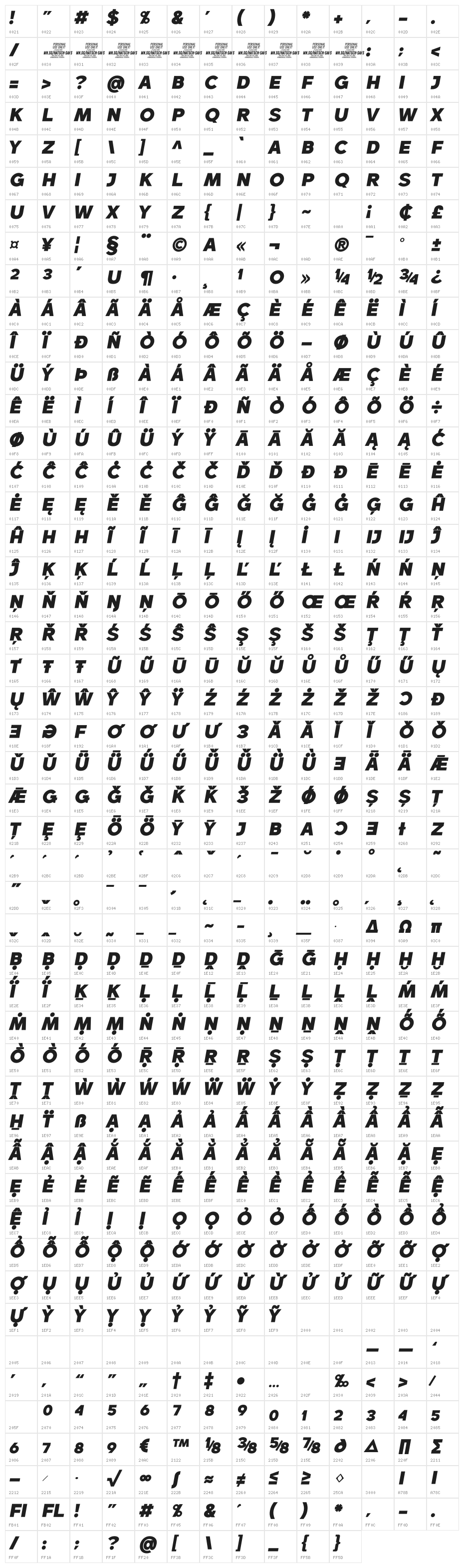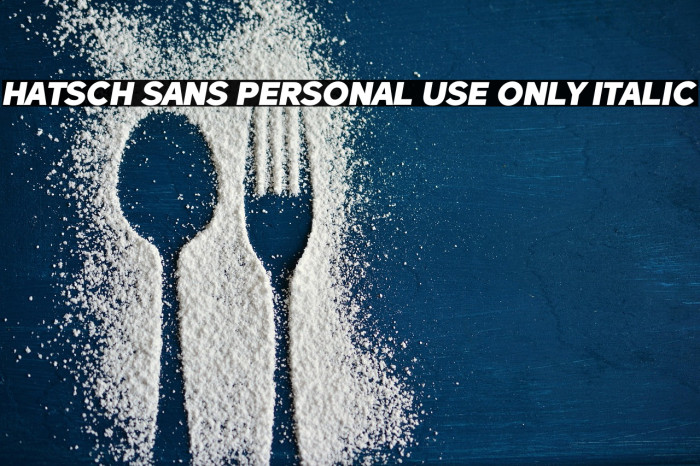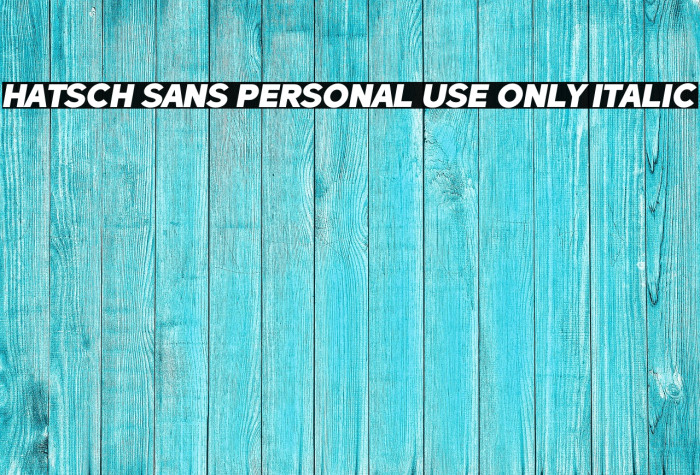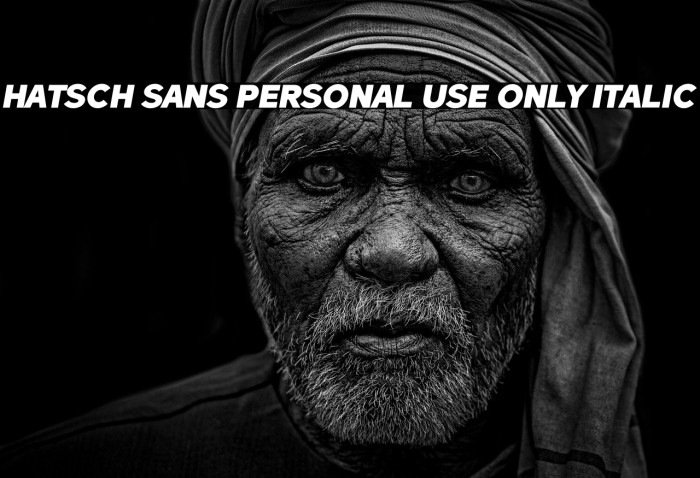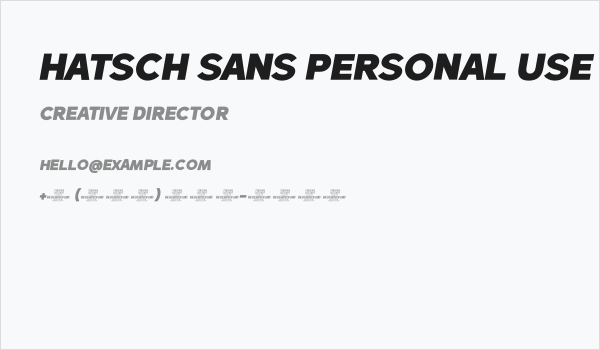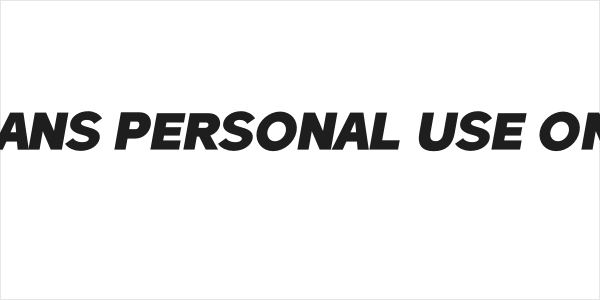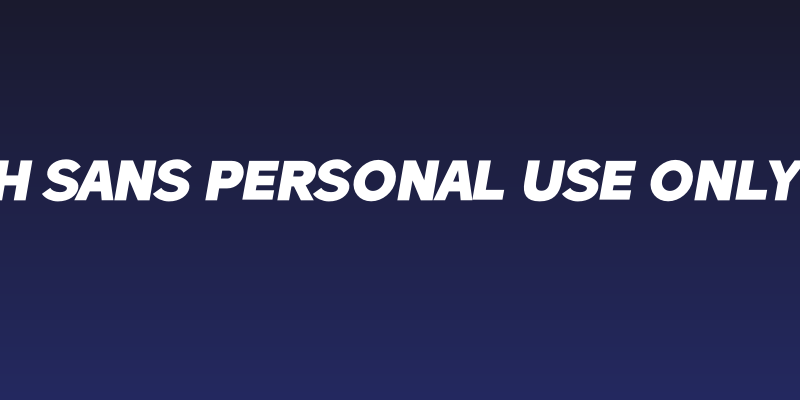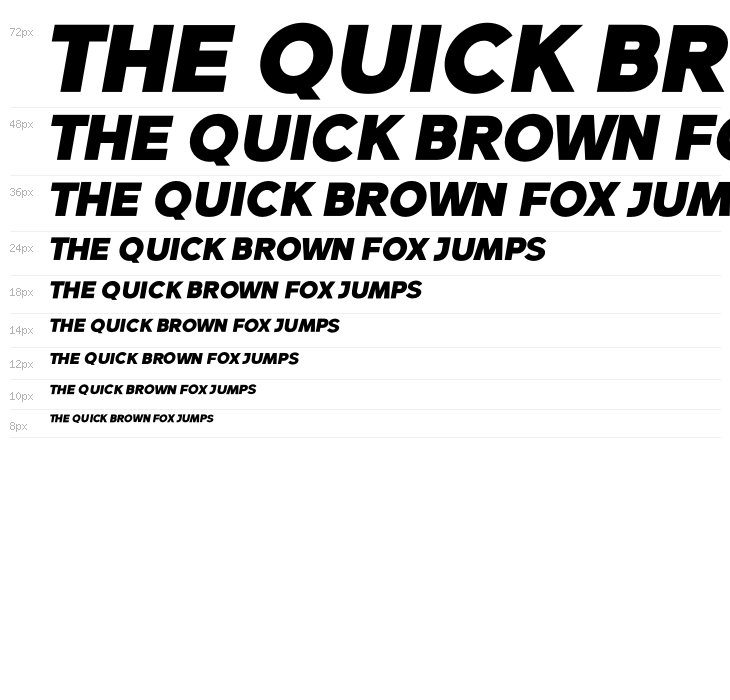
Hatsch Sans PERSONAL USE ONLY Italic Font
Hatsch Sans PERSONAL USE ONLY Italic Description
This font features a bold and dynamic style with a strong italic slant, giving it a sense of motion and energy. The characters are thick and robust, with a uniform stroke width that conveys strength and stability. The sans-serif design is clean and modern, making it highly legible. The uppercase and lowercase letters are well-proportioned, and the numbers are clear and distinct. Special characters are included, maintaining the bold and italicized style, adding versatility for various uses.